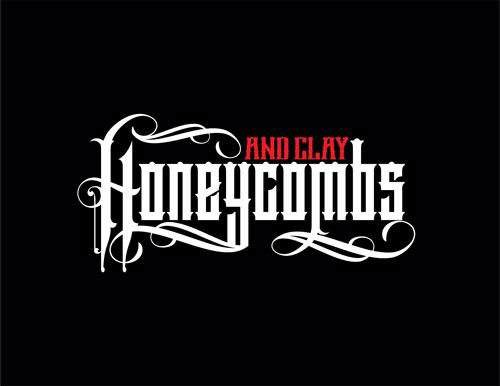
Fonts Free Font Of The Day #80 – Deadly Heat Font by Yayang Apryana December 29, 2014 Deadly Heat Font The font is Blackletter font, with opentype feature. Project and Design by Freebies PSD. Download